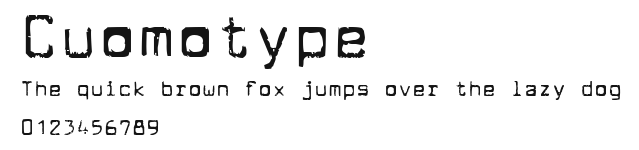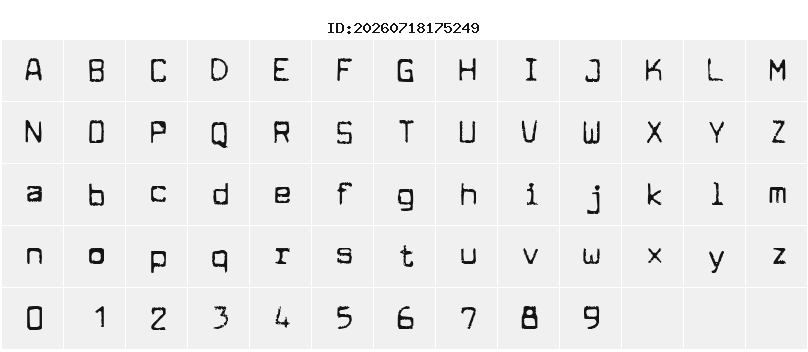
Cuomotype Preview
• Font Name: Cuomotype
About Cuomotype.ttf
Cuomotype.ttf is a modern, elegant sans-serif font designed for ultimate readability and visual harmony. Perfect for branding, headlines, web design, and print materials.